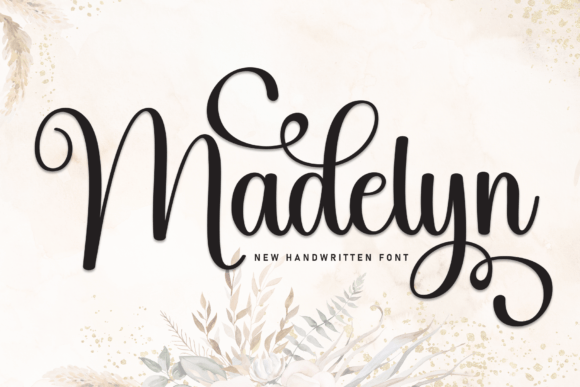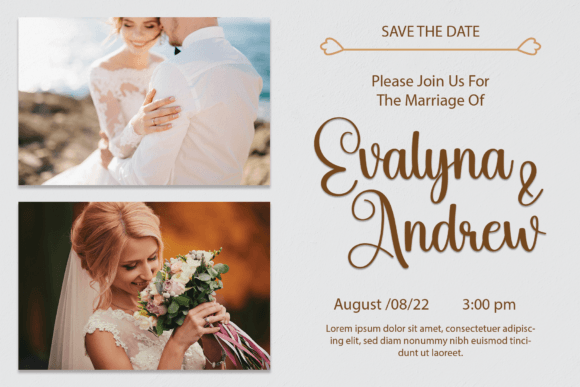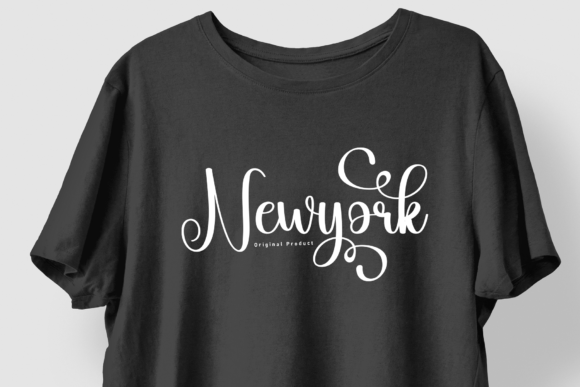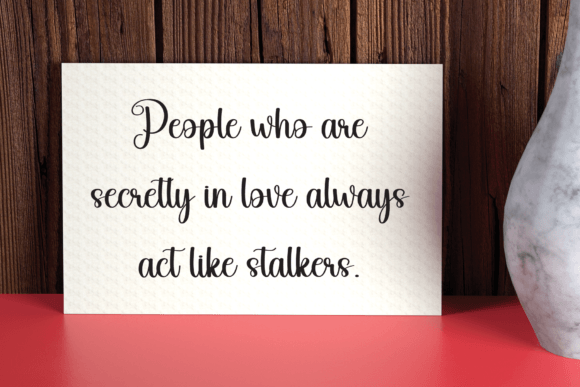
Madelyn Font: Elegant Script for Wedding Invitations & Branding
About the Madelyn Font
Presenting Madelyn Font, a unique and stylish typeface that will make your work stand out. Madelyn is a modern and charming handwritten font that exudes elegance and personality. Its graceful, flowing strokes and sophisticated character make it perfect for upscale invitations, personal branding, and chic editorial designs. Elevate your projects with the refined allure and warmth of this font.
Madelyn’s elegant, flowing forms are ideal for headlines, short paragraphs, and branding applications requiring a touch of sophistication. It works exceptionally well on stationery, logos, and short-form marketing materials where its charm can shine. However, its delicate nature makes it less suitable for body text or UI elements; the readability suffers over longer passages.
Consider pairing Madelyn with a clean sans-serif like Lato for a contemporary feel, or a classic serif such as Garamond for a more traditional, balanced aesthetic. A geometric sans-serif could provide a nice contrast, adding a modern edge to Madelyn’s handwritten warmth.
Madelyn projects a personality of refined elegance and friendly approachability. It’s perfect for brands aiming for a sophisticated yet approachable image, particularly in the lifestyle, fashion, or beauty sectors.
Madelyn Font Usage Examples
Madelyn Font Example